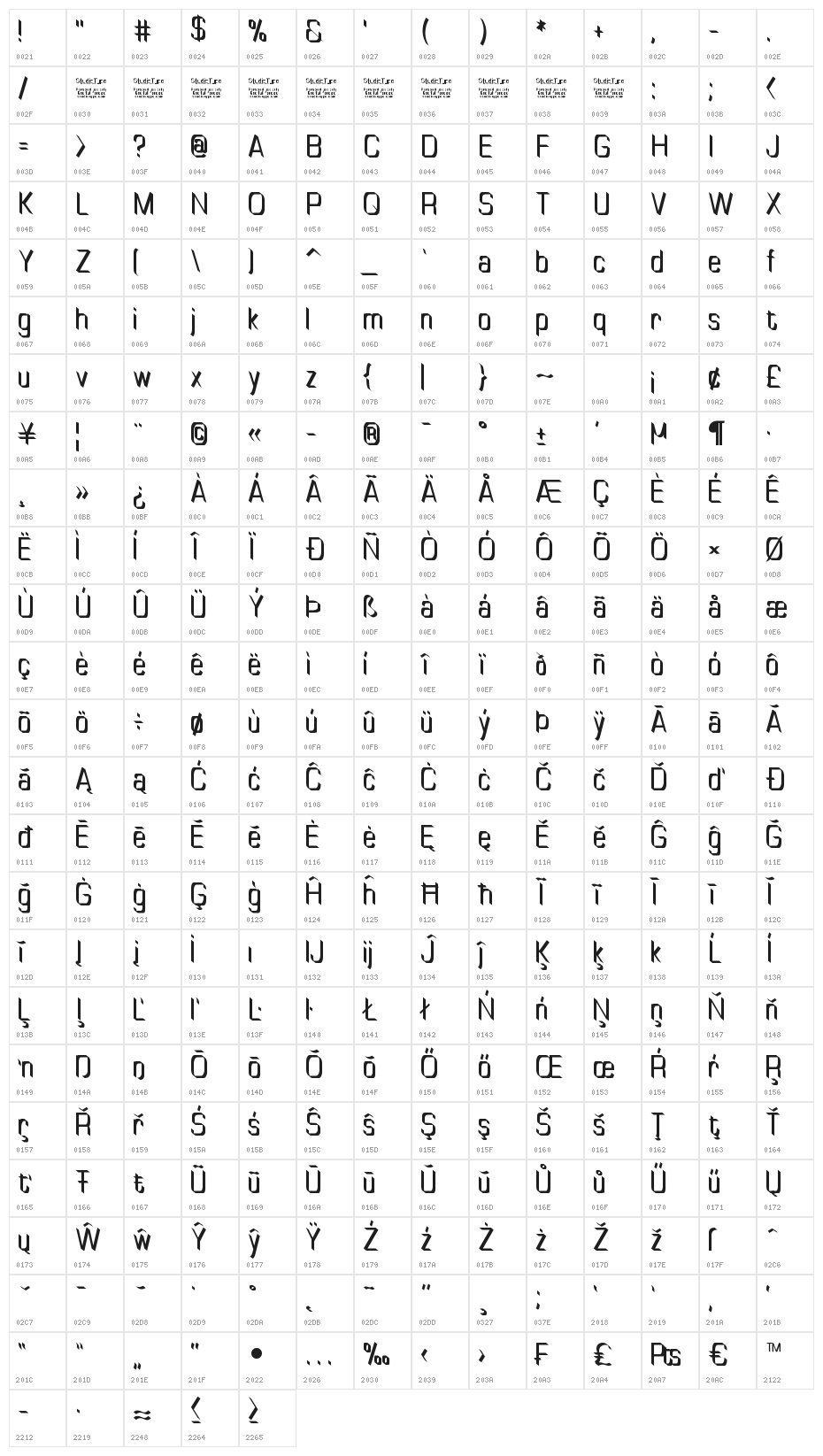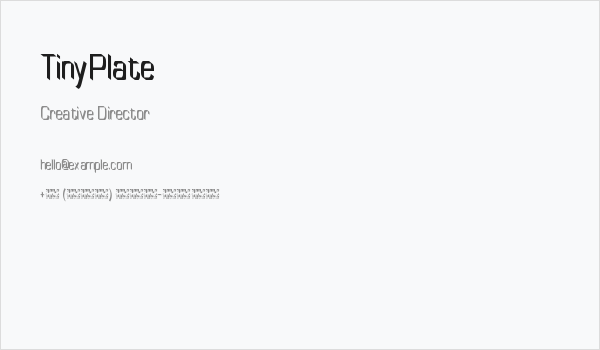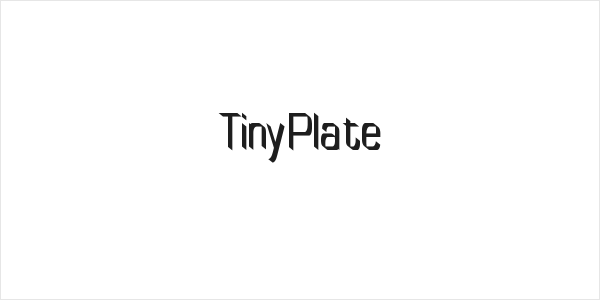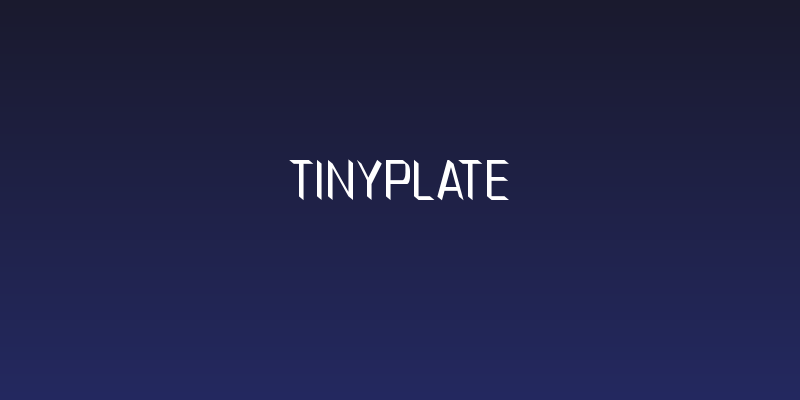
TinyPlate Font
TinyPlate Description
This font features a bold, geometric design with sharp angles and a modern aesthetic. The uppercase letters are particularly striking, with a strong presence and a futuristic feel. The lowercase letters maintain the geometric theme but with a slightly softer touch, making them versatile for various design applications. The numbers and special characters are consistent with the overall style, ensuring a cohesive look across all text elements. This font is ideal for projects that require a contemporary and edgy appearance.
Proposed ProjectsIdeal for branding, advertising, posters, and digital media projects that require a modern and edgy look.